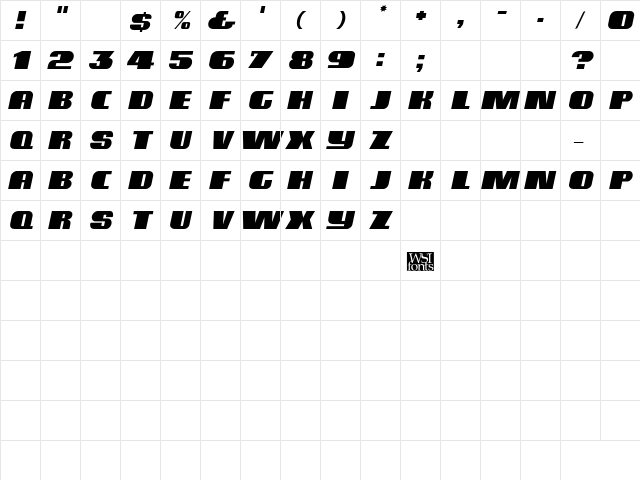
BlutussCaps Italic
Design Context for BlutussCaps Typeface
BlutussCaps offers clean, dependable letterforms without strong stylistic allegiance, making it a practical choice for designers who need flexibility. The dynamic lean of this cut emphasises speed and emphasis in any layout.
Pro Tip: Use BlutussCaps for emphasis, pull quotes, and subheadings where its slanted energy can add rhythm to the layout.